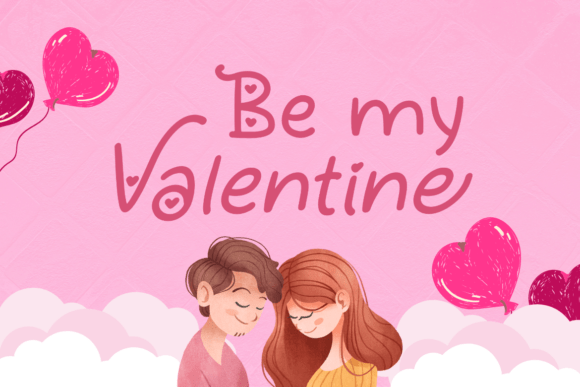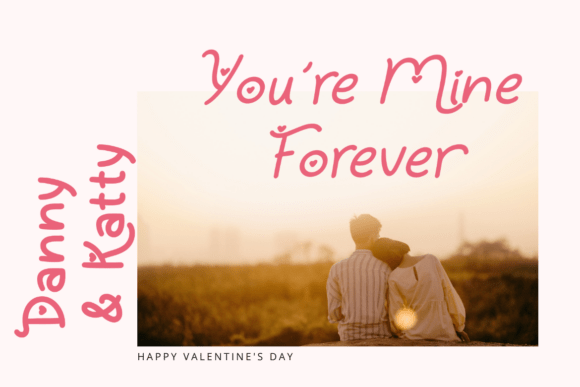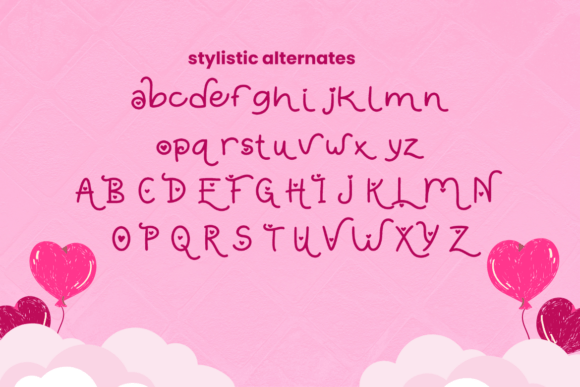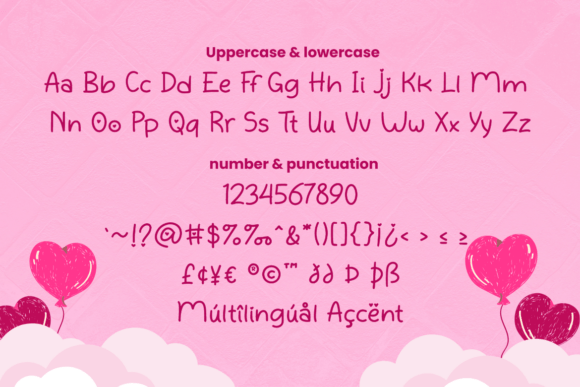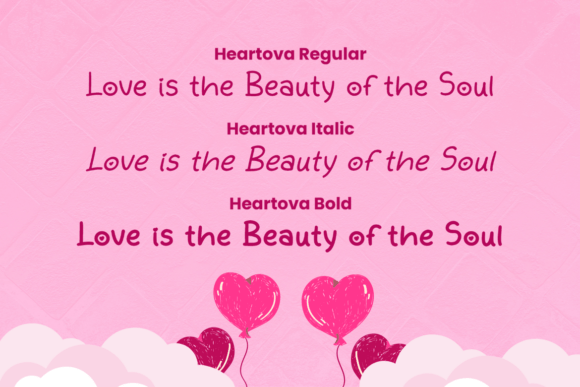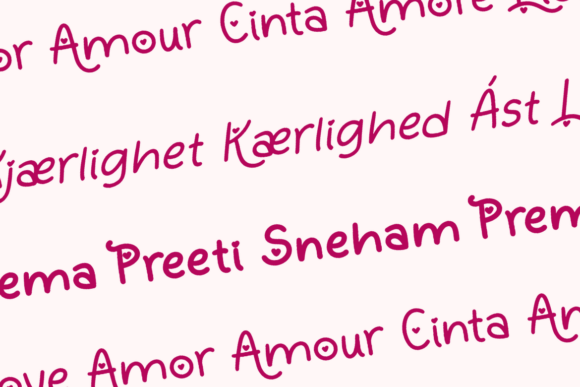
Introduction to Heartova Font
Remember the thrill of designing a Valentine’s Day campaign or a wedding invitation? The excitement of creating something special that captures the essence of love and affection? For designers, crafting a beautiful and meaningful message is a labor of love. That’s where the Heartova Font comes in – a charming, playful font designed specifically for romantic projects, celebration designs, and heartfelt messaging.
With its distinctive heart-shaped letterforms and circular design elements, the Heartova Font adds a touch of whimsy and personality to any creative project. Its versatility and high-quality design make it an invaluable resource for designers, allowing them to express their creativity and bring their ideas to life. Whether you’re working on a free download or a commercial project, the Heartova Font is sure to make a lasting impression. With its transparent background and extensive character support, it’s the perfect design resource for any creative endeavor.
From social media content to event promotions, the Heartova Font is the perfect choice for designers who want to add a romantic and modern touch to their work. With regular, italic, and bold weights, you have the flexibility to layer and emphasize your messages, making it an essential tool for any design project.
Key Features of Heartova Font
- High-quality design resource with a unique and creative touch, perfect for various projects.
- Includes a comprehensive character set, covering a wide range of languages and special characters.
- Designed with a high resolution of 300 DPI, ensuring crisp and clear text display, even at larger sizes.
- Perfect for use in creative projects, such as logos, graphics, and typography, where a unique and eye-catching font is essential.
Honest Review: Heartova Font
As a designer, I’m always on the lookout for high-quality fonts that can elevate my creative projects. I recently had the chance to try out the Heartova Font, and I’m excited to share my honest review.
What works well: ✨ The Heartova Font is incredibly versatile and can be used for a wide range of design projects. The font is available for free download, making it an excellent resource for designers on a budget. The high-quality design and transparent background make it easy to use and customize.
- Wide range of design applications
Any limitations: ⚠️ While the Heartova Font is a great resource, it may not be suitable for large-scale commercial projects. The font is a bit limited in terms of customization options, which may be a drawback for some designers.
Overall impression: I’m really impressed with the Heartova Font. It’s a great addition to any designer’s toolkit, and its free download makes it an excellent value. While it may have some limitations, it’s definitely worth checking out for any creative project.
Tips for Getting the Most Out of Heartova Font
To get the most out of the Heartova Font, use it on a transparent background to create a clean and minimalist design. You can also experiment with different font sizes, colors, and combinations to create a unique look.
Common Use Cases for Heartova Font
The Heartova Font is perfect for creating invitations, social media graphics, and branding materials. Its high-quality typography and transparent background make it an ideal design resource for creative projects.
Comparison to Heartova Font: While Heartova Font has a more playful and modern feel, Great Vibes Font is more elegant and refined. Great Vibes Font has a more organic and handwritten feel, making it perfect for designs that require a personal touch.